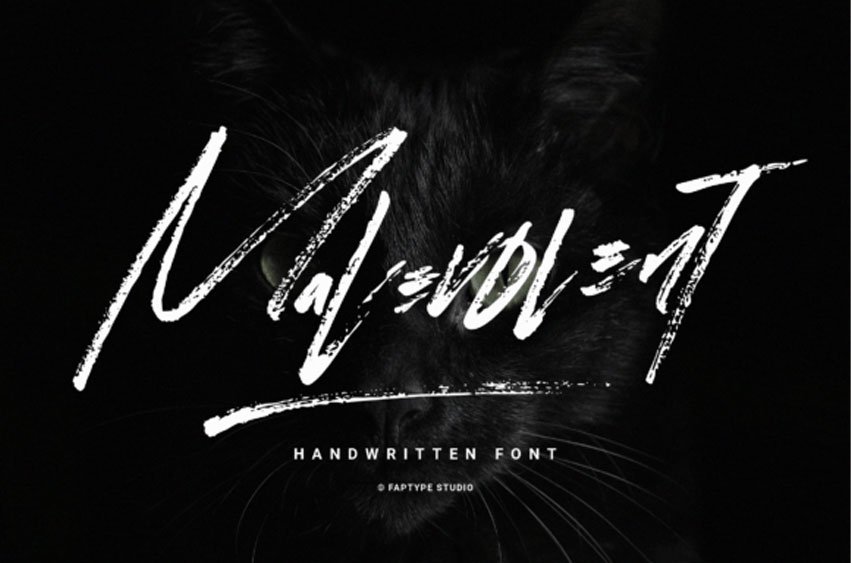
Malevolent Font is a handcrafted dry brush font that captures the raw, rebellious spirit of traditional brush lettering. Created manually using a Tombow Fudenosuke brush pen, each letter was carefully drawn on paper, scanned in high resolution, and meticulously digitized to retain its natural texture and imperfect beauty. The result is an authentic brush font that feels alive, full of character, motion, and expressive energy.
This font is designed for creators who want their typography to stand out. Malevolent Brush includes a complete set of uppercase and lowercase characters, a wide range of punctuation and symbols, swashes for added flair, and multilingual support that covers most Latin-based languages. It’s versatile and ready to elevate your design projects—whether you’re working on music merchandise, streetwear branding, poster headlines, editorial layouts, social media graphics, or even horror and metal-inspired artwork.
What makes Malevolent Brush different is its genuine handcrafted look, not simulated or artificial. The dry brush strokes bring an organic, gritty feel that adds emotional depth and attitude to your words. Whether you’re aiming for a bold, aggressive vibe or a more grunge and underground look, this font delivers intensity and uniqueness in every letter.